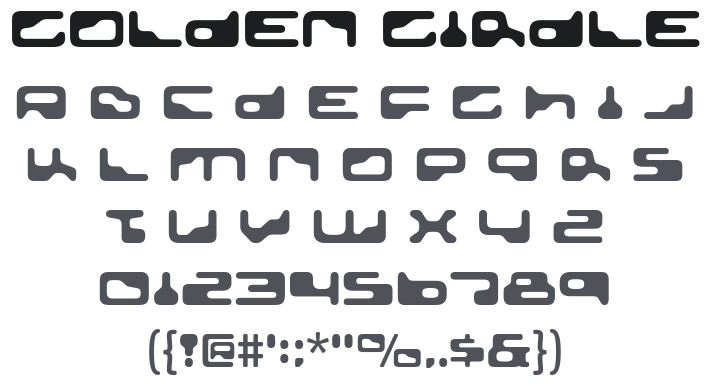
Golden Girdle Font
About Golden Girdle
Golden Girdle is a wide, retro-futuristic display typeface inspired by the magnetic ink (MICR) fonts of the 1960s — its broad, authoritative letterforms carry that unmistakable era of optimistic space-age technology. The unusual proportions give it a commanding, cinematic sci-fi presence. Perfect for science fiction titles, retro-tech branding, space exploration themes, and any headline needing bold mid-century futurism.